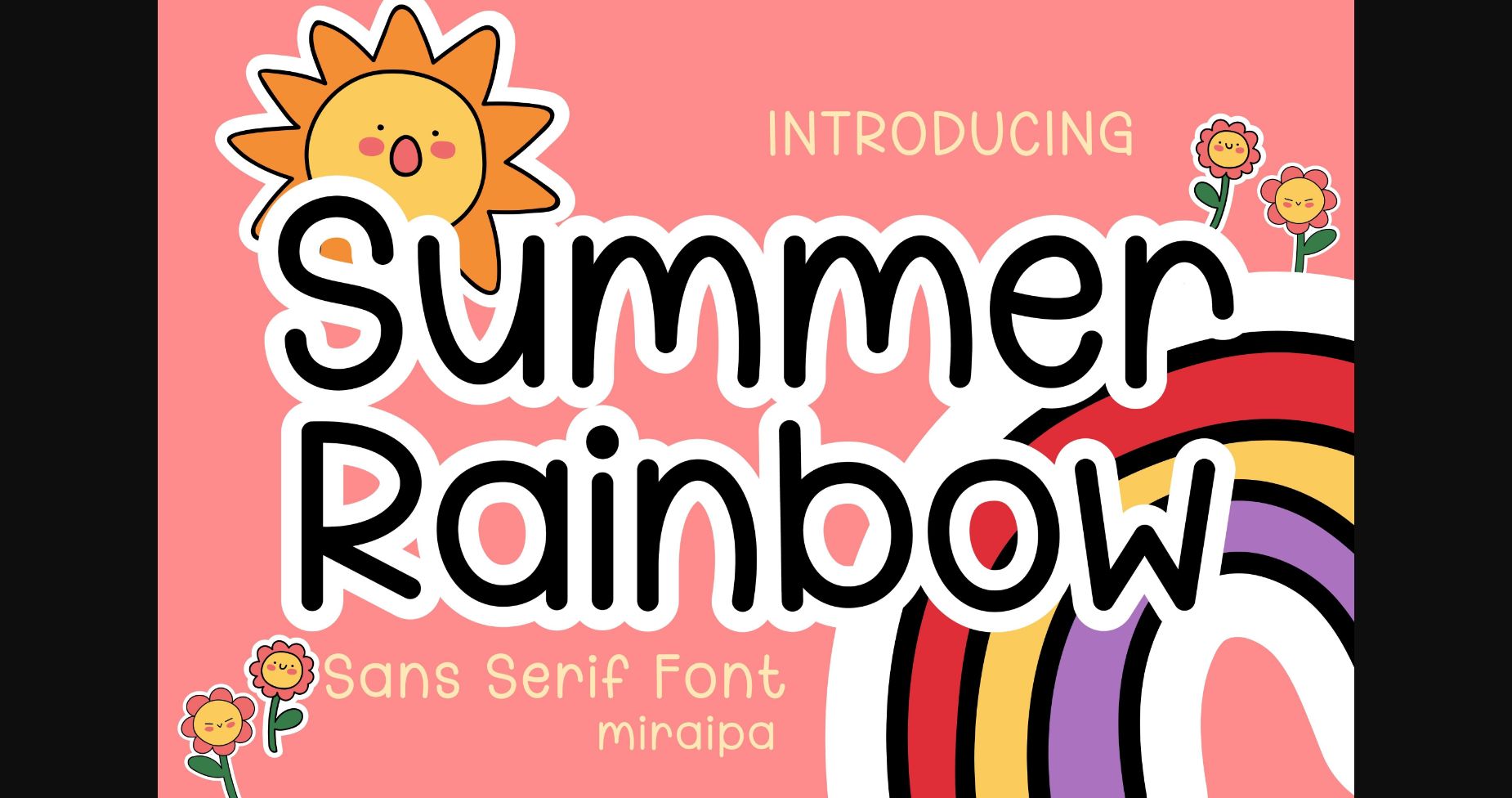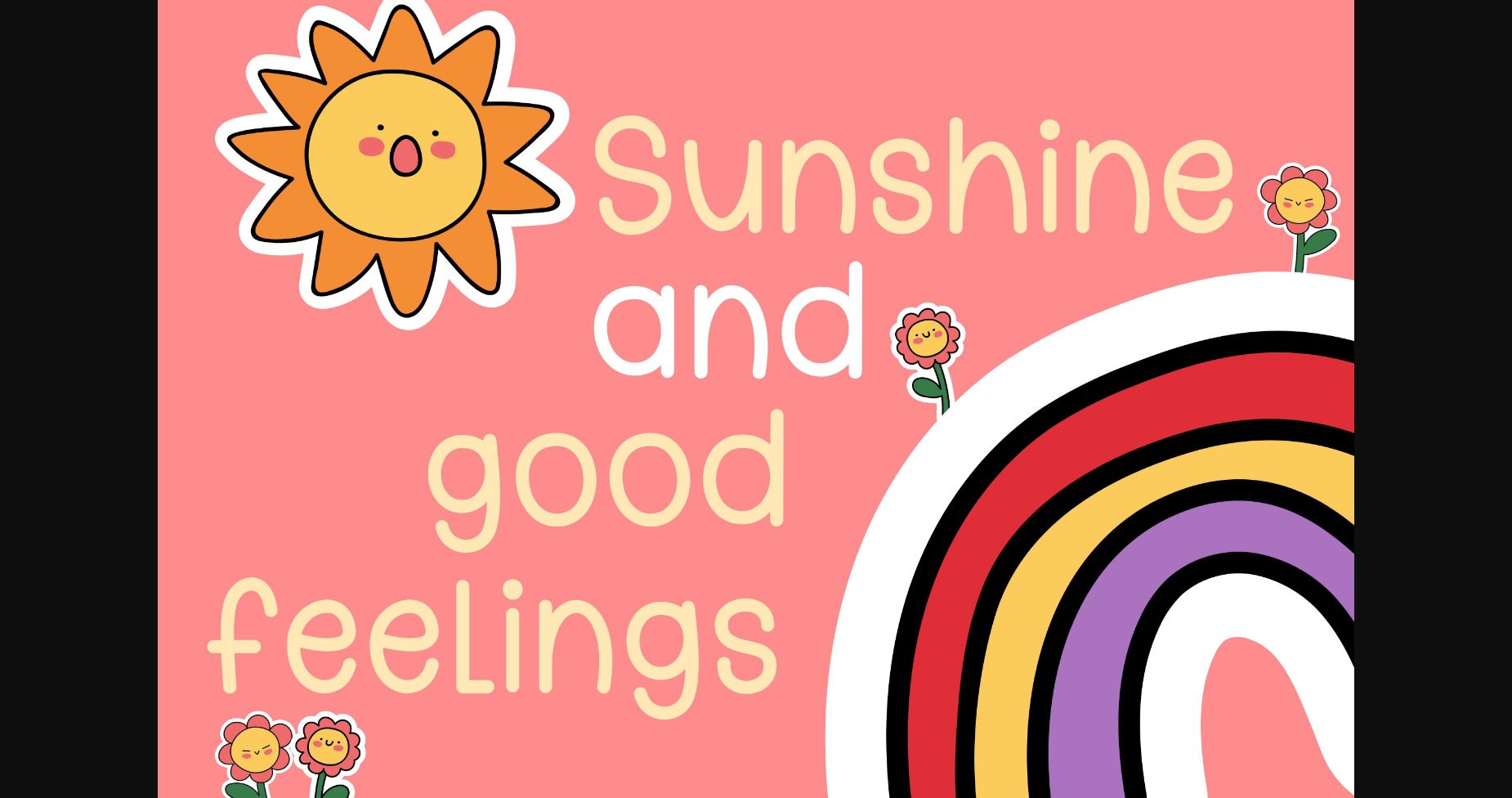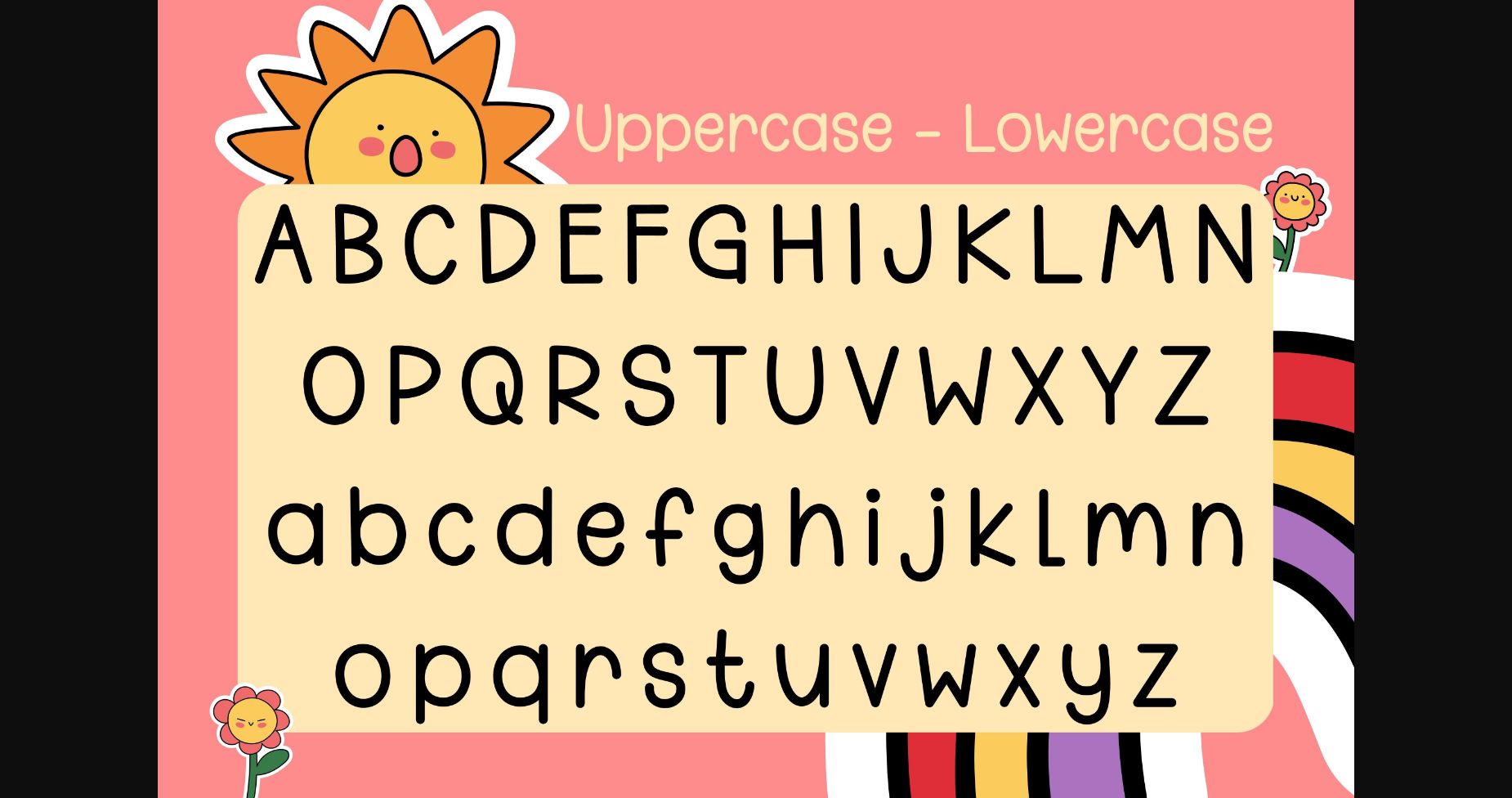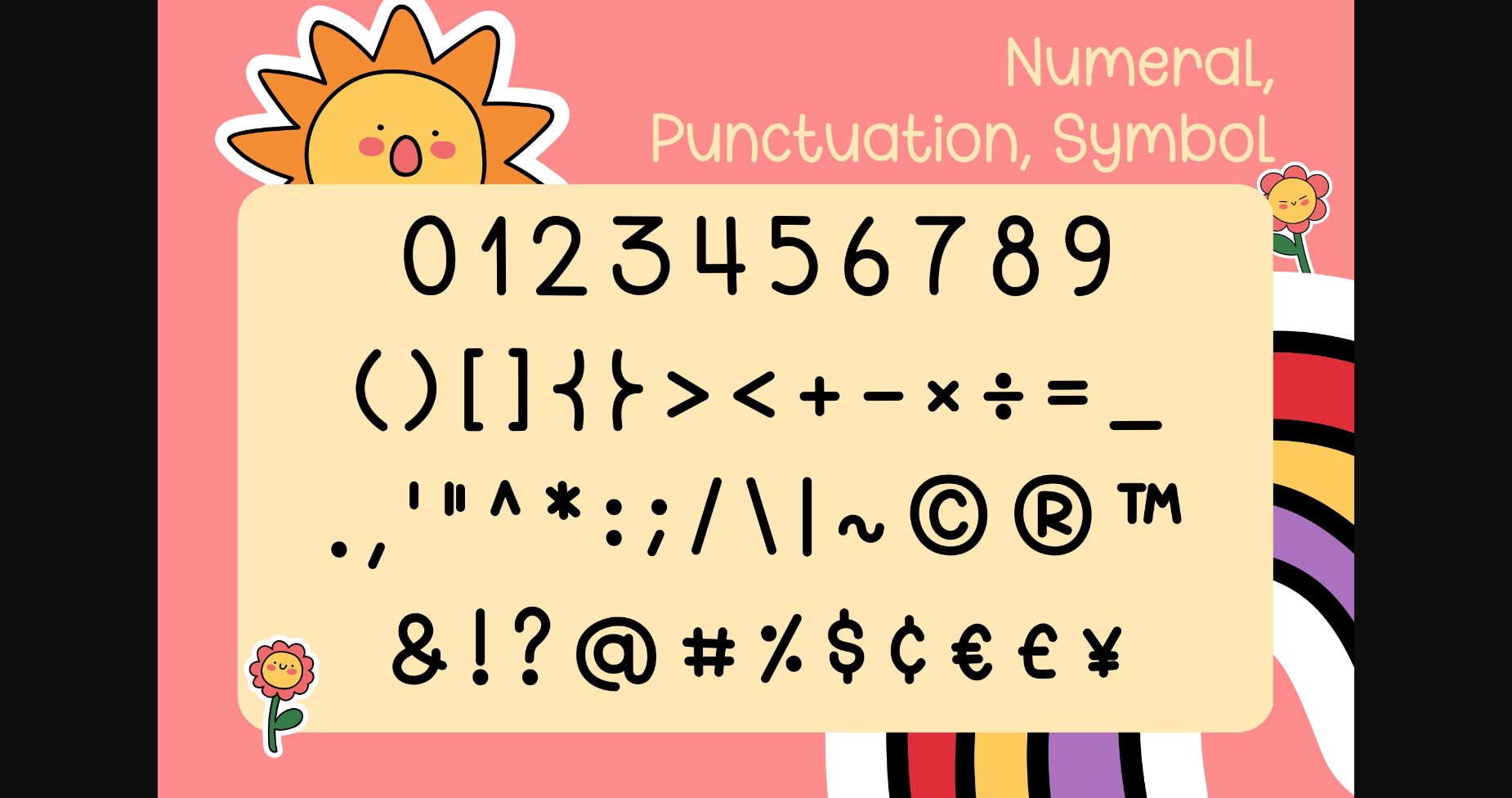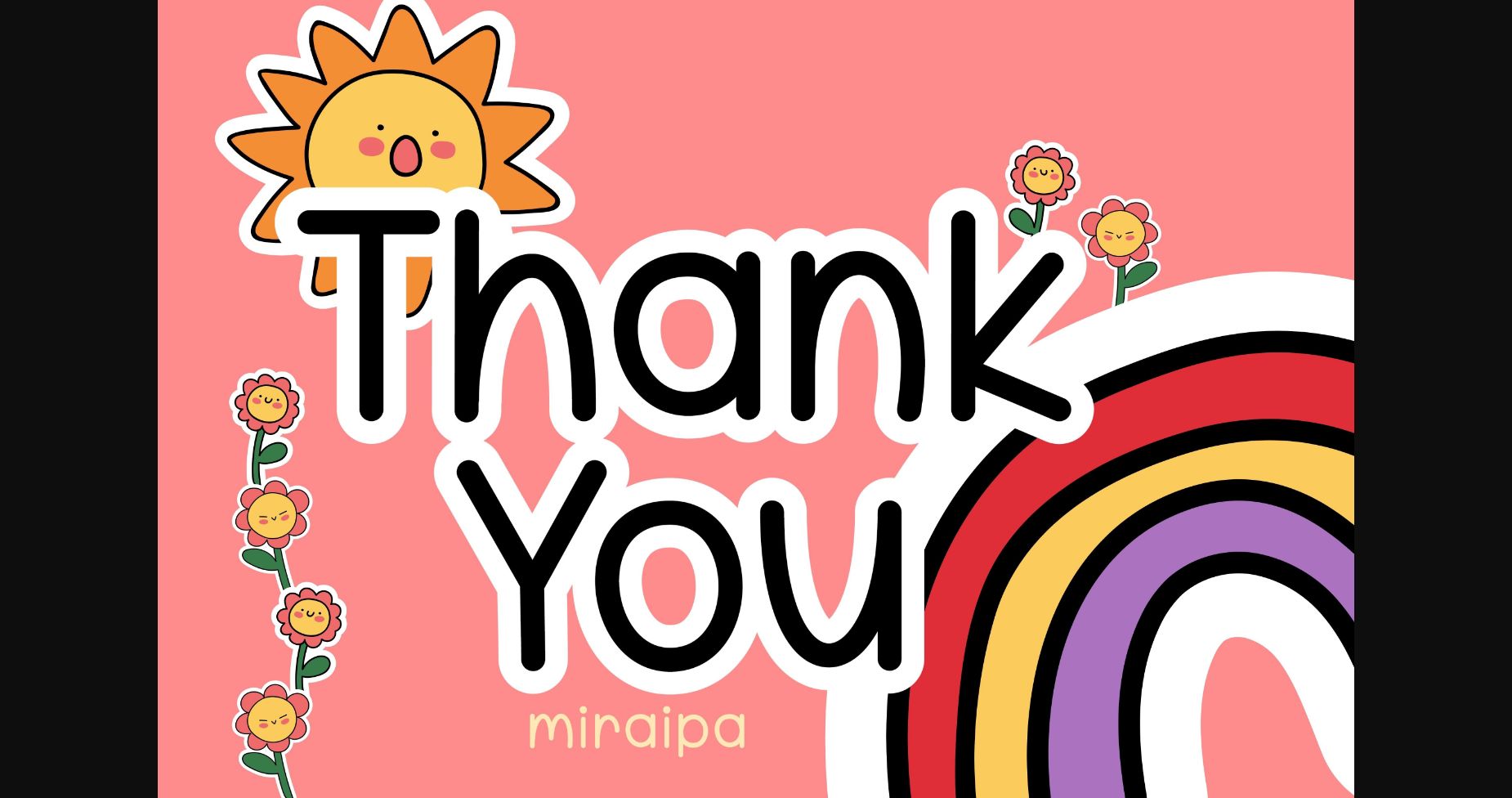
Summer Rainbow Font
About Summer Rainbow Font
Summer Rainbow is a playful and charming handwritten sans serif font that captures the essence of a warm summer day. Its soft, rounded letterforms convey a sense of friendliness and approachability, making it perfect for anything from greeting cards to children’s books. The font’s smooth lines and delicate curves create a whimsical and carefree vibe, while its legibility ensures that it’s easy to read. Summer Rainbow’s cheerful and optimistic style is sure to brighten up any project and bring a smile to your audience’s face.